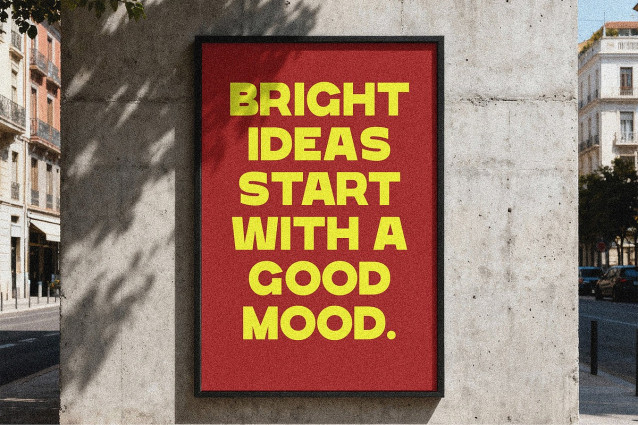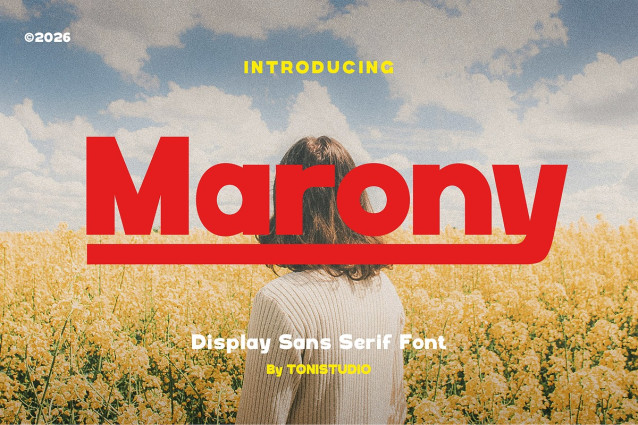
Marony Font
Marony Font is a bold and modern display sans serif font designed to make a strong visual impact. With its solid structure, clean curves, and confident letterforms, Marony delivers a powerful and eye-catching presence in any design. This typeface is perfect for headlines, branding, posters, packaging, and statement typography. Its contemporary style makes it ideal for creative projects that demand attention while maintaining clarity and readability. Marony combines simplicity with strength, making it versatile for both digital and print applications.